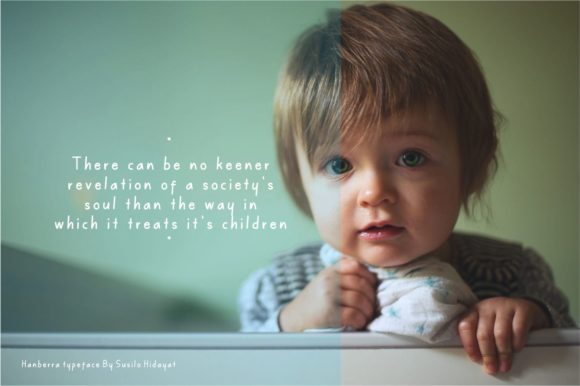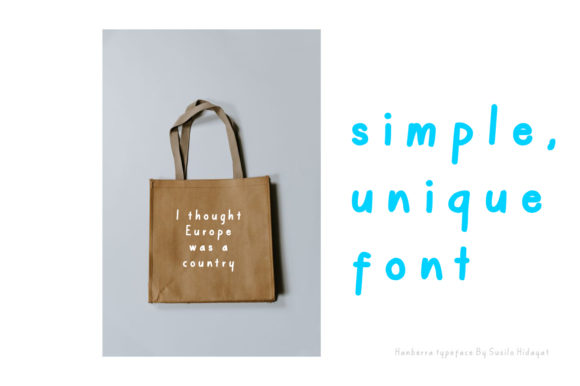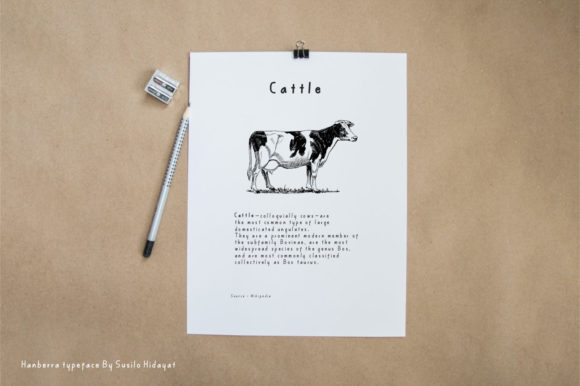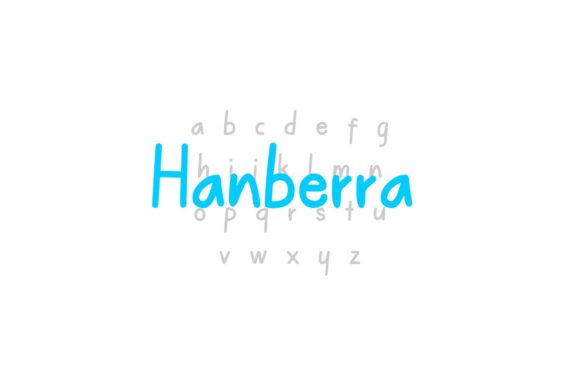
HomeScript FontsHanberra Font Script Fonts Hanberra Font FacebookXPinterestWhatsApp Hanberra Font Poster 2 Hanberra Font Poster 3 Hanberra Font Poster 4 Hanberra Font Poster 5 About Hanberra Font Hanberra is a classic and casual script with a unique charm. Fall in love with its simple elegance! DOWNLOAD ON CREATIVE FABRICAThis font is sold and delivered by Creative Fabrica. Font Canyon may earn a commission if you buy through this link. People also explored Betterlife Font Alanta Font Mandala Font Glaster Font Boven Digoel Font Shelbia Font Aistori Font Flowers Font Angelina Font 333 0 TagsHanberra Font Previous articleMotereal FontNext articleShillentta Font LEAVE A REPLY Cancel reply Comment: Please enter your comment! Name:* Please enter your name here Email:* You have entered an incorrect email address! Please enter your email address here Website: Save my name, email, and website in this browser for the next time I comment. Personal Use Free Po Beef Personal Use Free Read more about this font Gaboed Personal Use Free Read more about this font Vanity Personal Use Free Read more about this font Cute Messy Personal Use Free Read more about this font BLOG Using Fonts in Digital Marketing: Tips to Strengthen Your Brand Identity In the realm of digital marketing, every visual element plays a crucial role in shaping a brand's identity, and fonts are no exception. The... Fonts That Capture the Spirit of New York City Top 10 Handwritten Fonts That Elevate Your Designs To increase your work productivity, choose the most readable fonts.